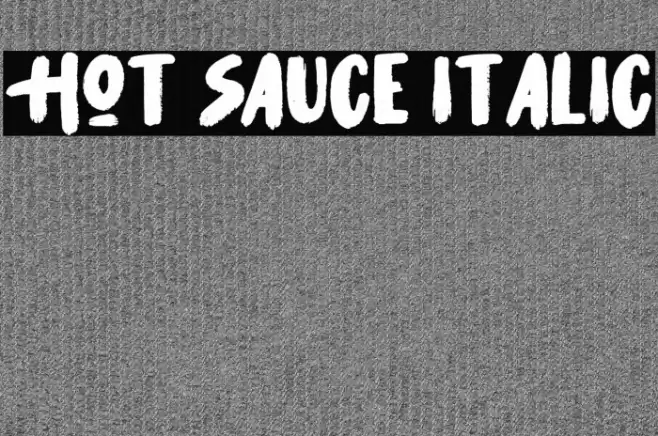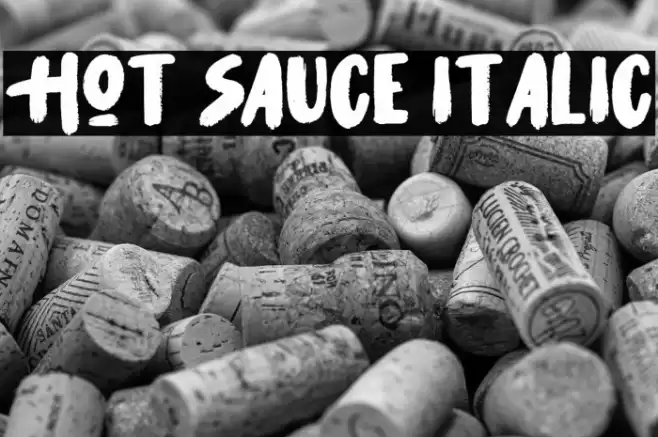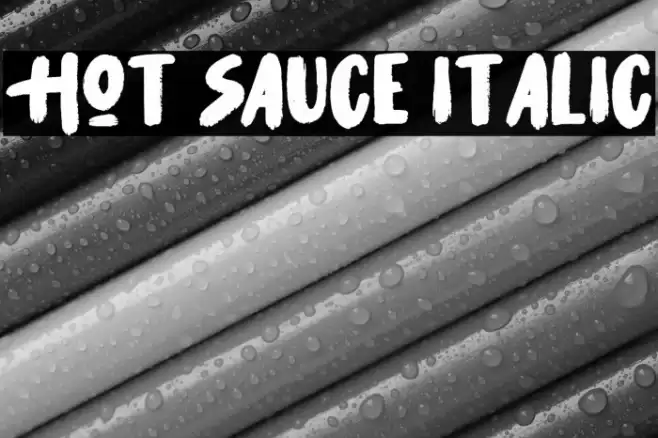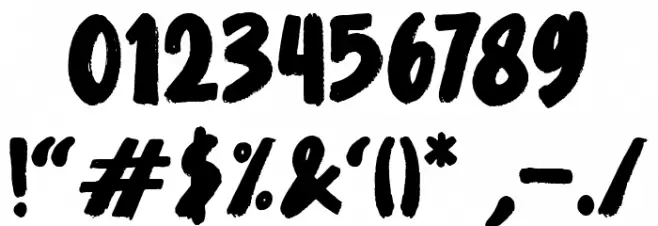
Hot Sauce Italic Font
Hot Sauce Italic Description
This font exudes a bold and energetic style, characterized by its thick, brush-like strokes that convey a sense of movement and dynamism. The letters are slightly slanted, enhancing its italic nature, while maintaining a consistent thickness throughout. The uppercase and lowercase letters are crafted with a playful yet assertive flair, making it ideal for attention-grabbing designs. The numerals and special characters follow the same expressive style, ensuring uniformity across all elements. Its handcrafted appearance gives it a unique, artistic touch, perfect for creative projects.
A bold, brush-style italic font with dynamic strokes and a handcrafted appearance from Uncategorized fonts.
- Proposed Projects: Ideal for branding, posters, packaging, and any creative project that requires a bold, artistic touch.
- Overall Style: Modern, Artistic